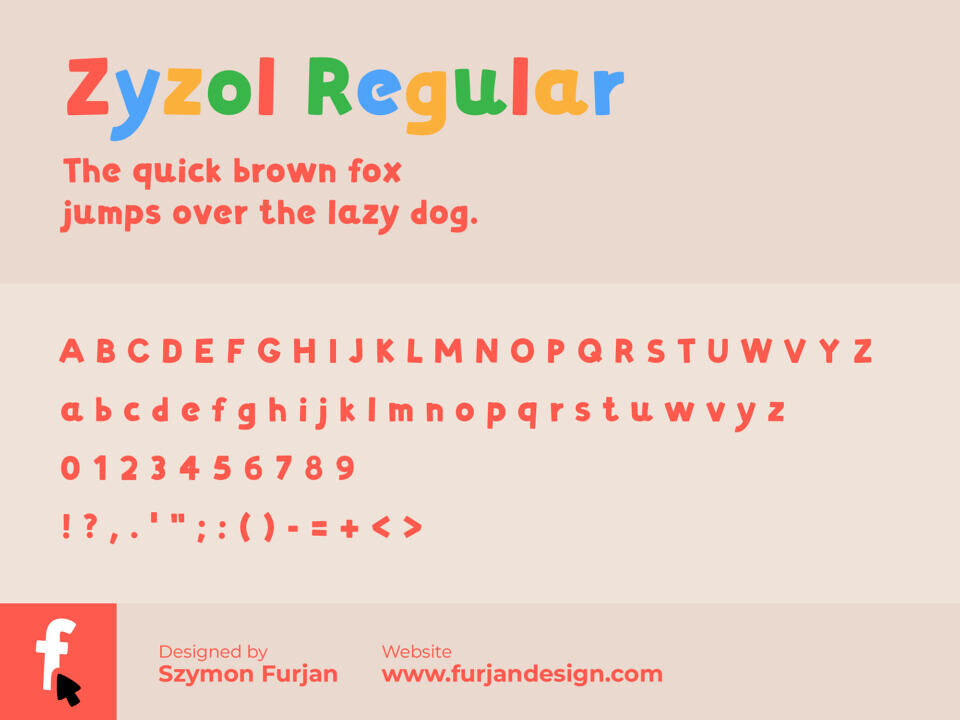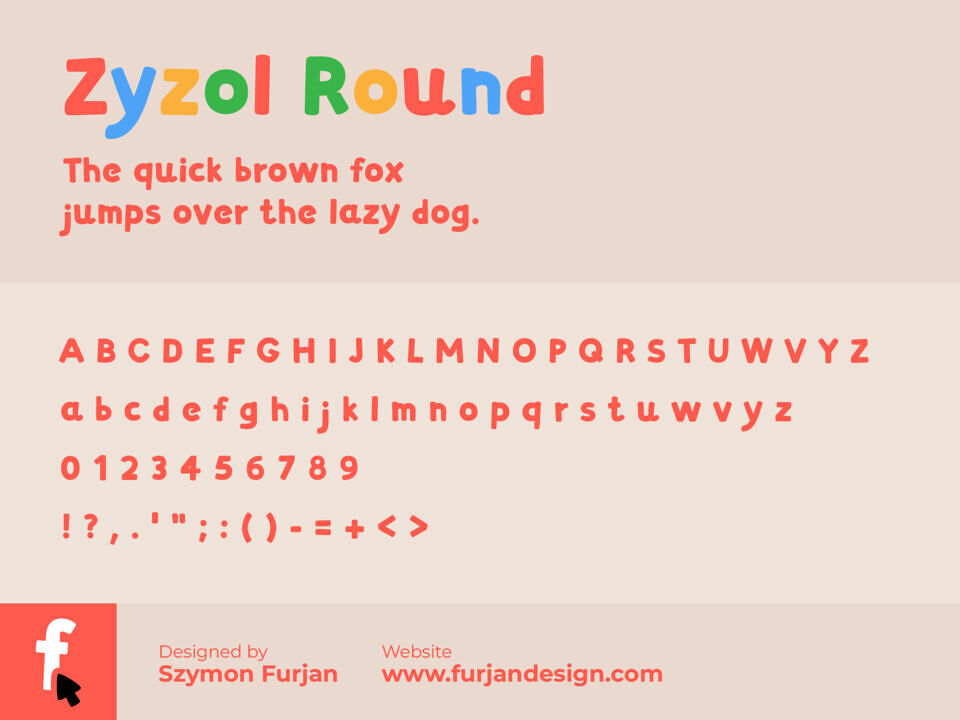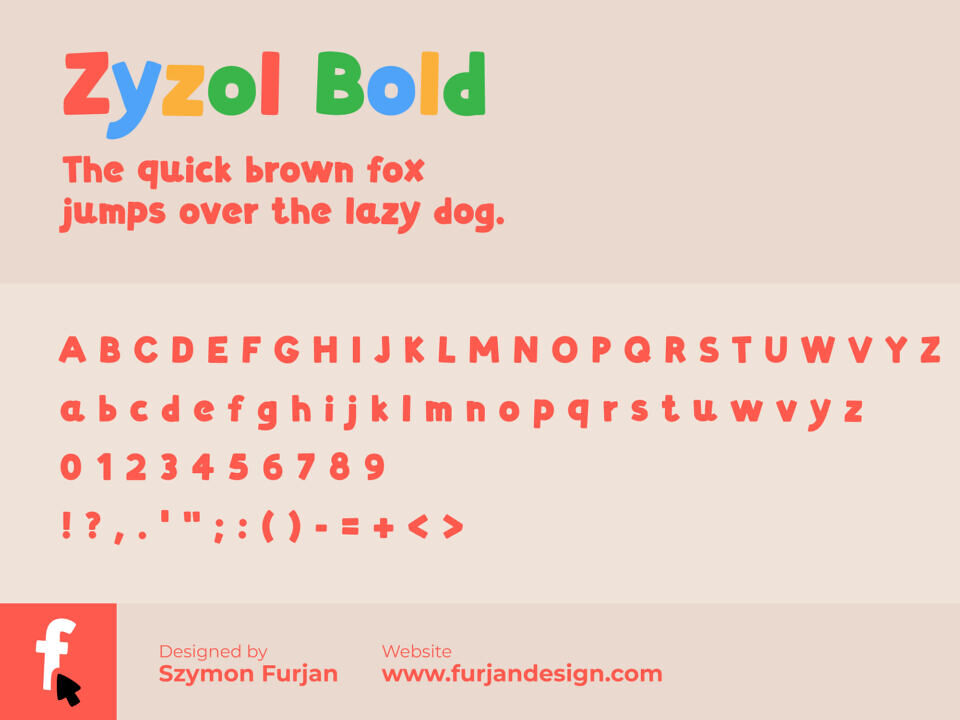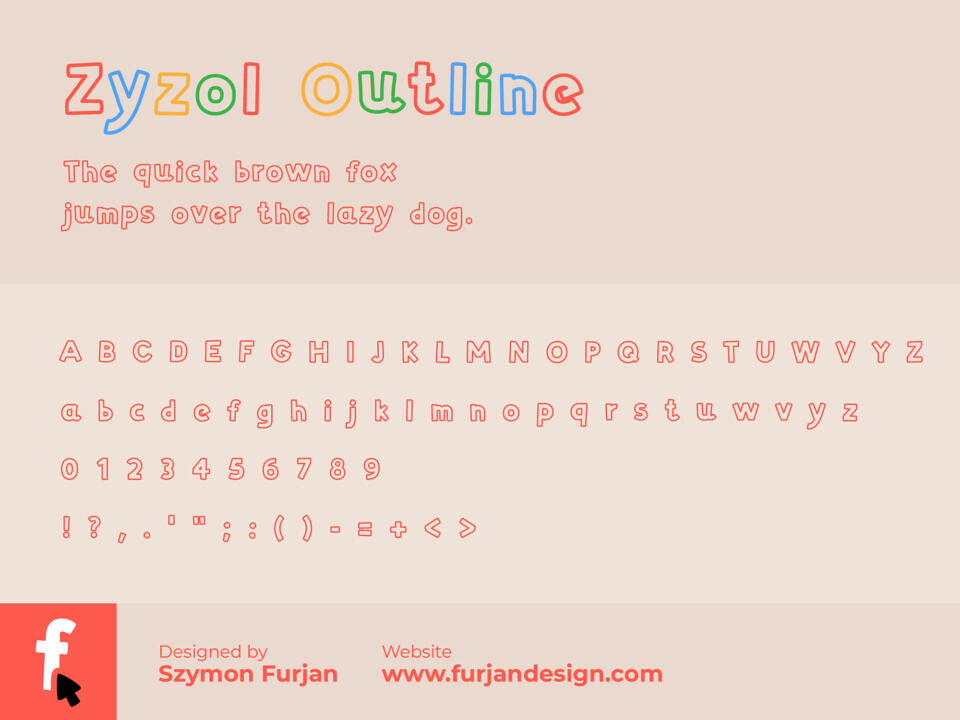
The Zyzol Font is a cheerful and bold cartoon display typeface designed by Szymon Furjan. This versatile, free font family features thick, rounded strokes and a playful, hand-drawn aesthetic with slightly irregular forms.
Zyzol instantly brings energy and a cute, approachable look to any project. The family includes five distinctive styles—Regular, Bold, Round, Outline, and Shadow—making it perfect for creating eye-catching headers, children’s books, fun branding, packaging, and quirky posters.